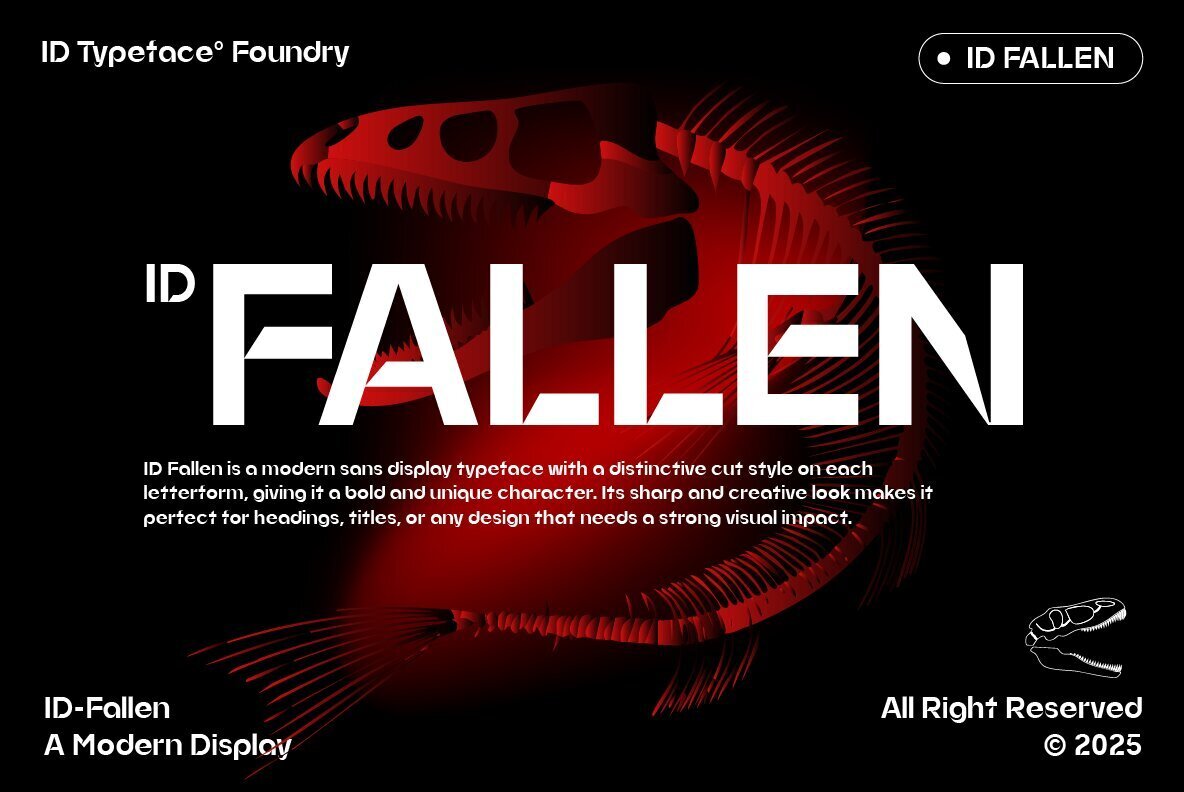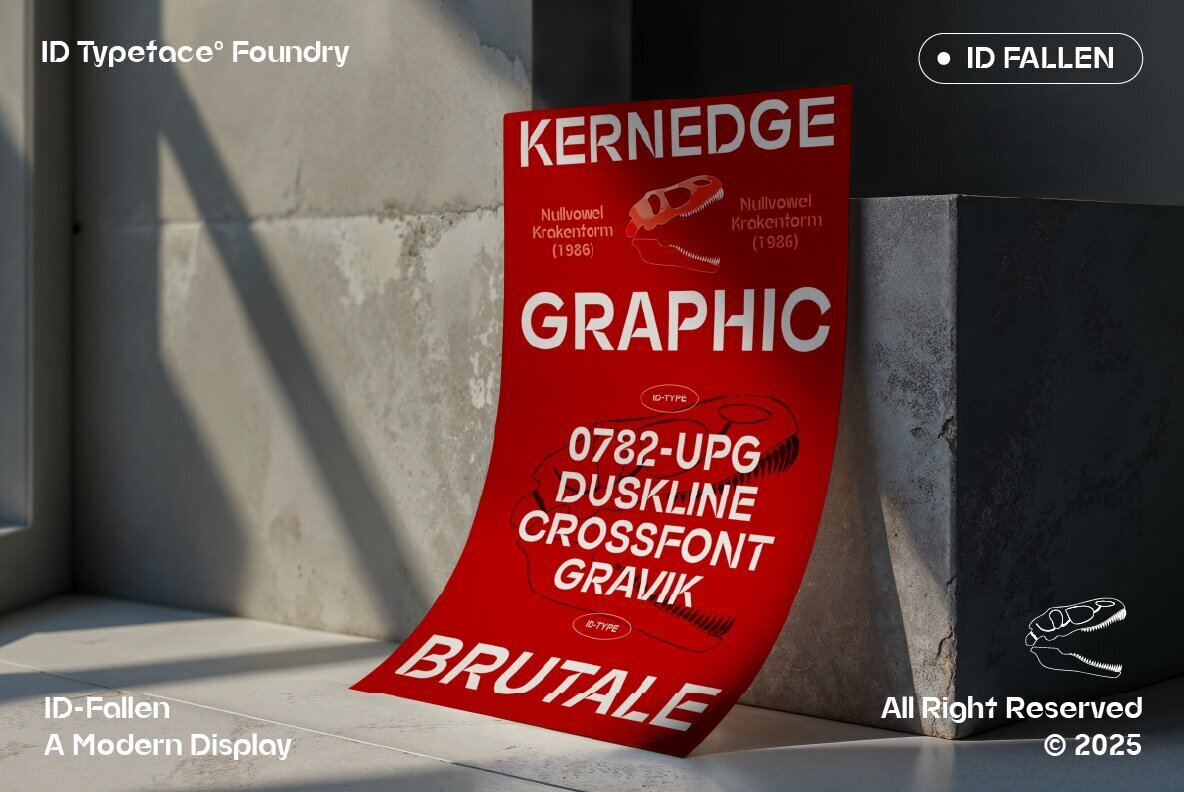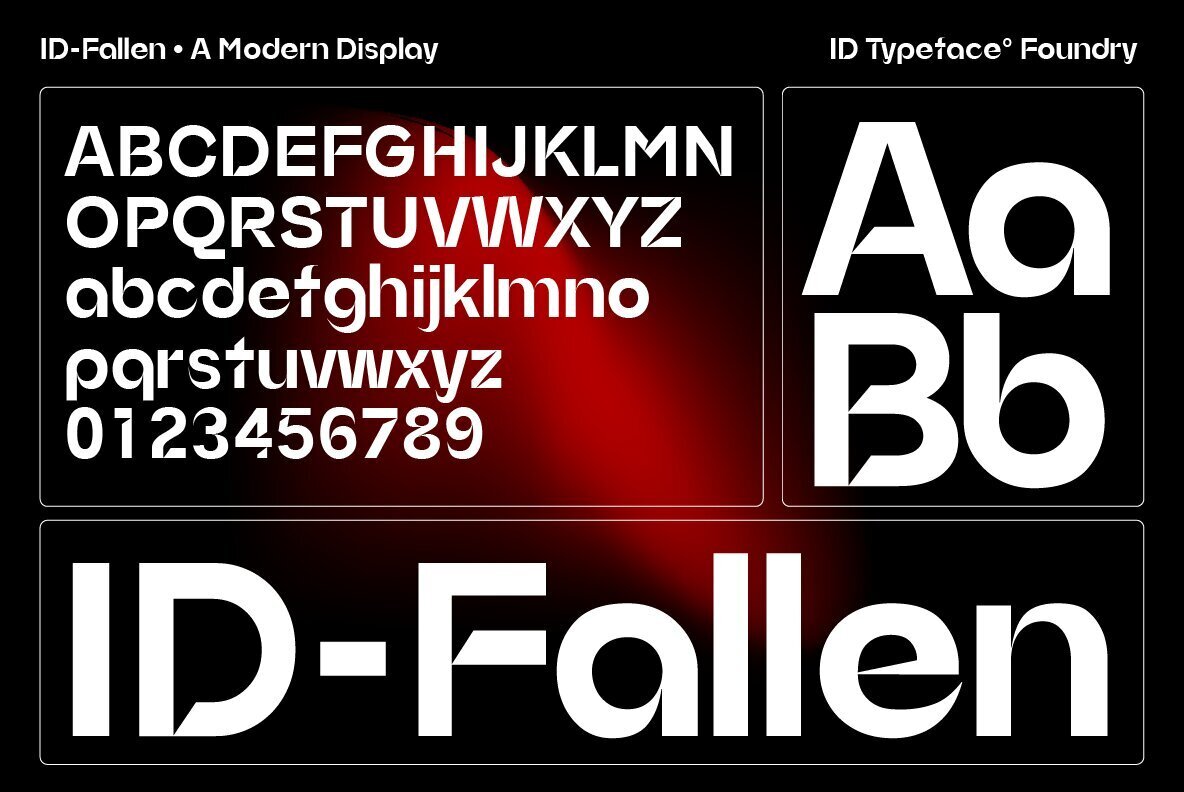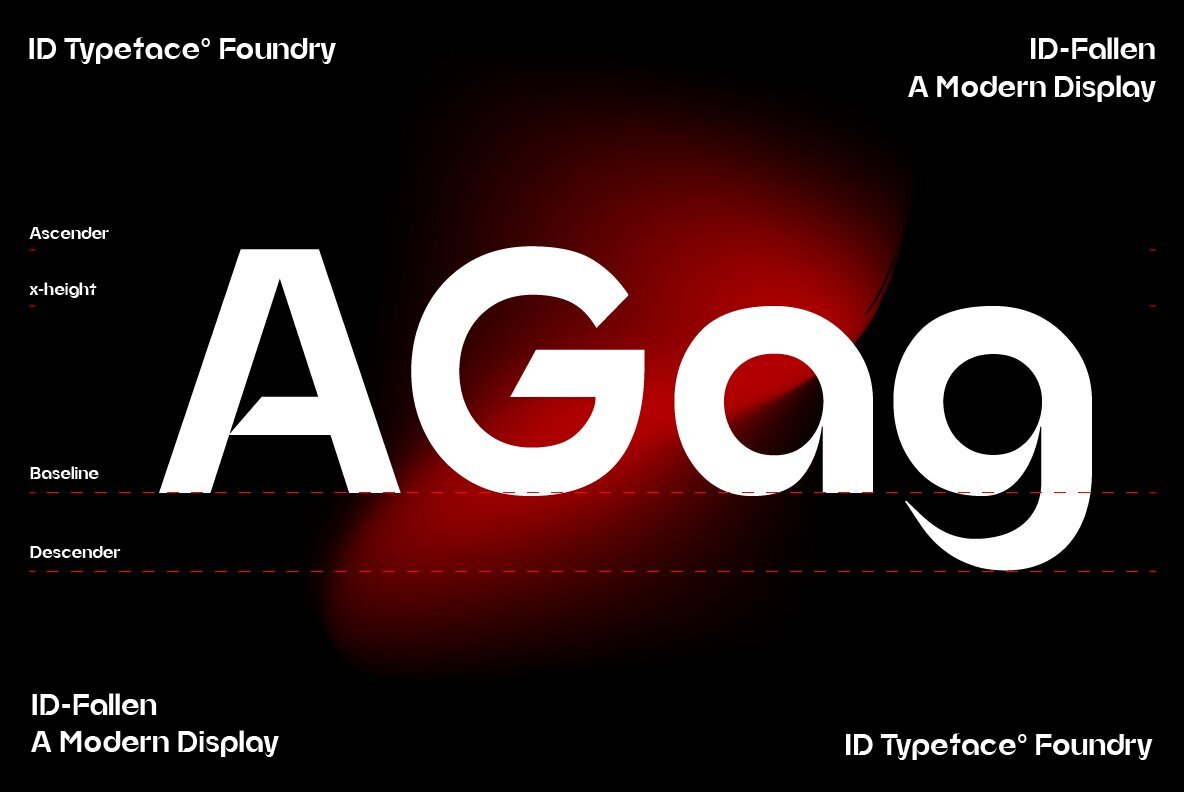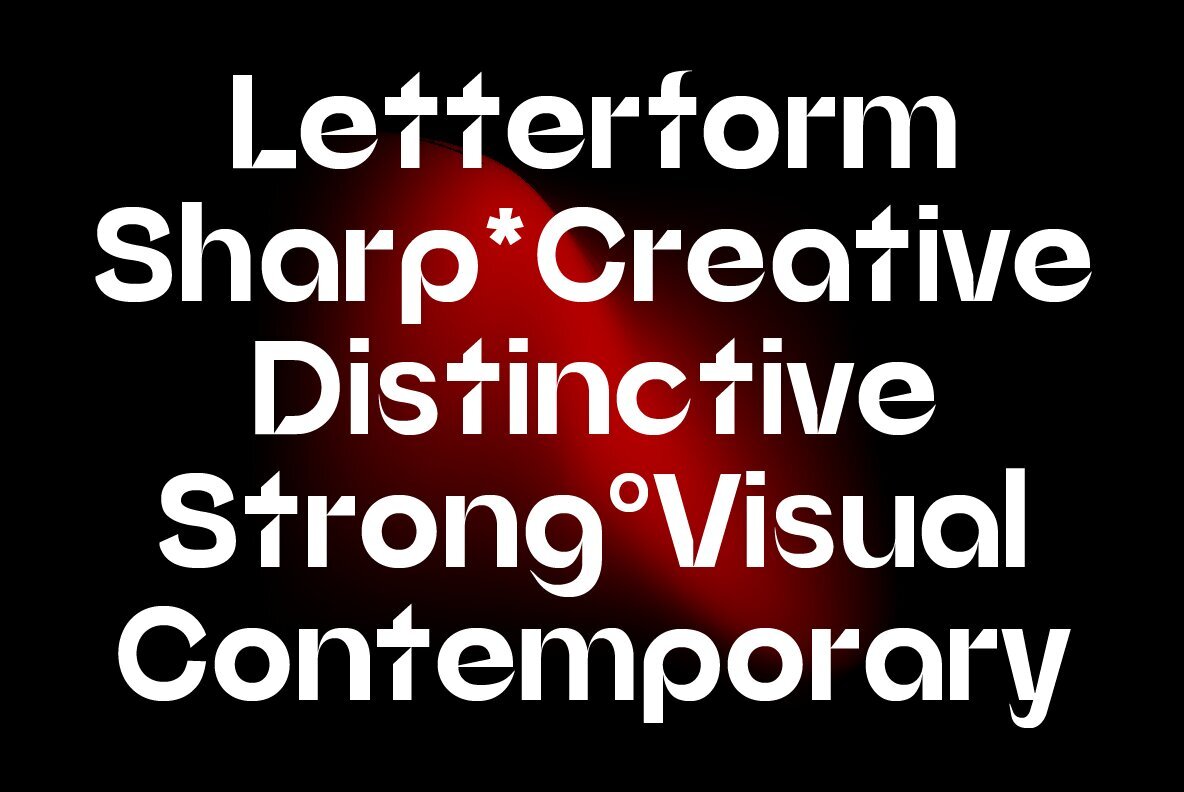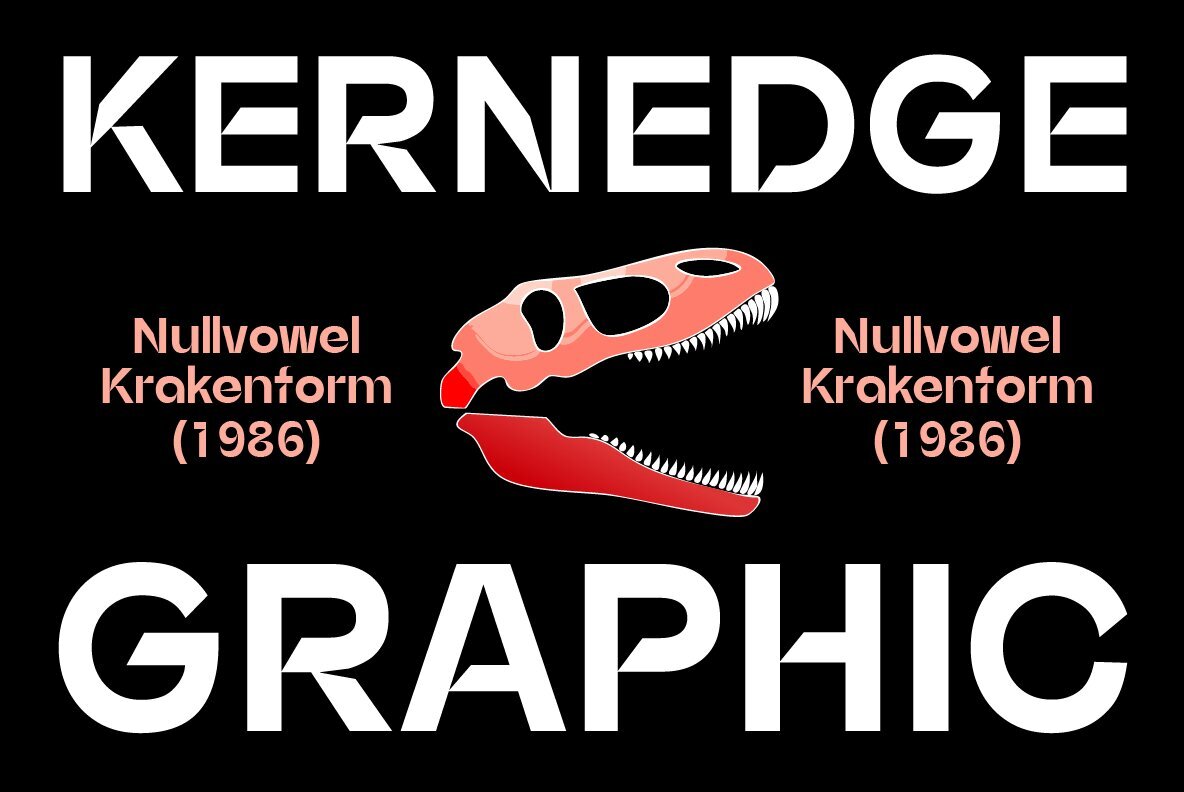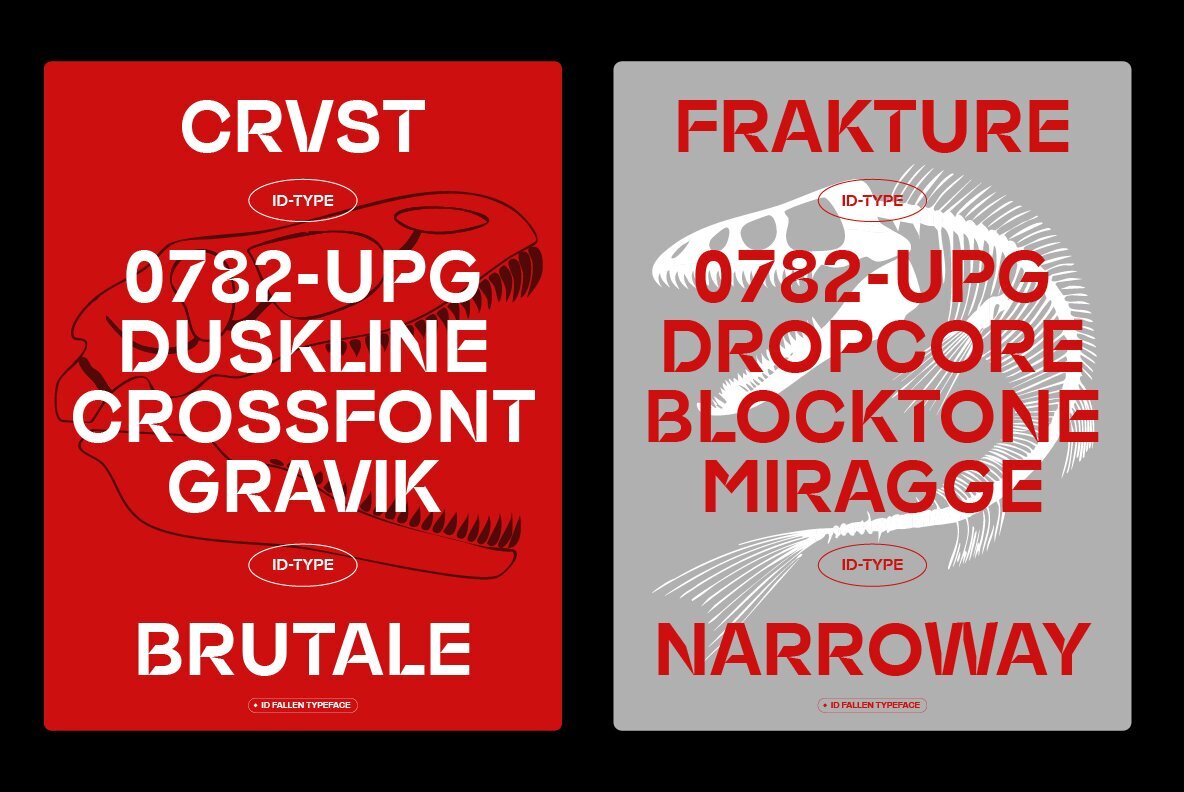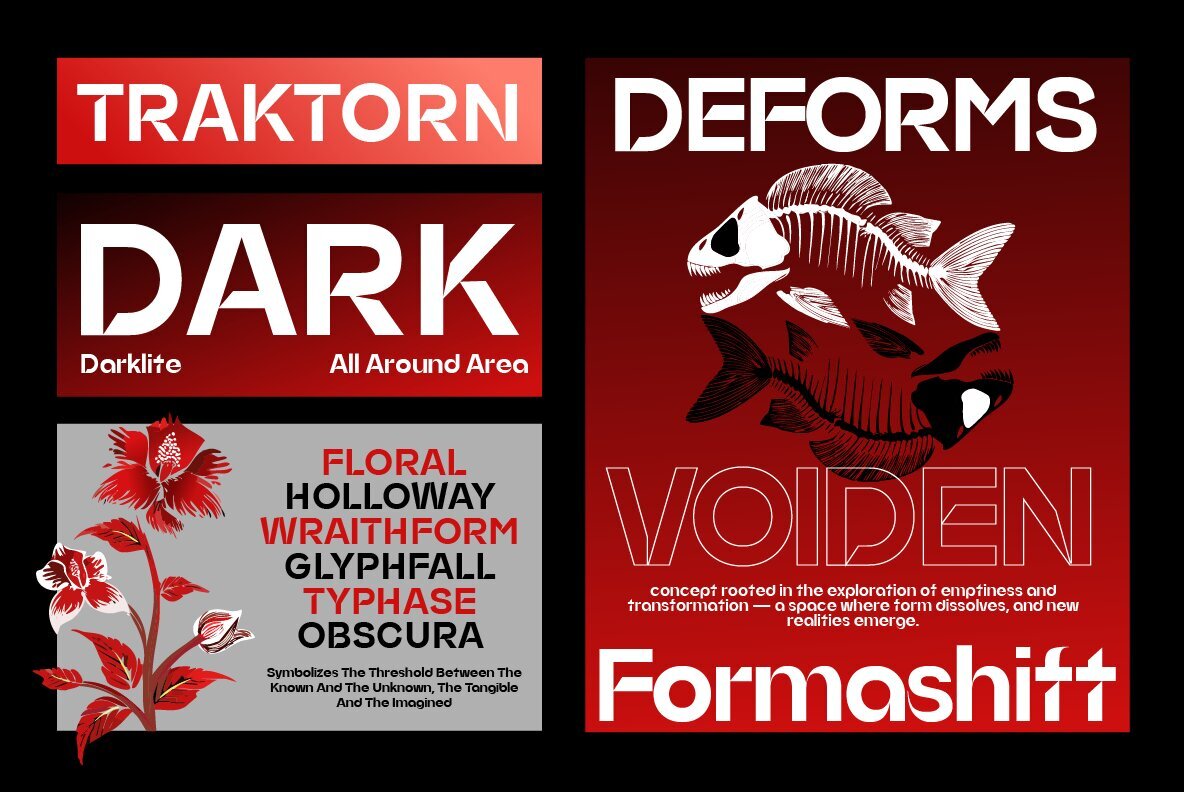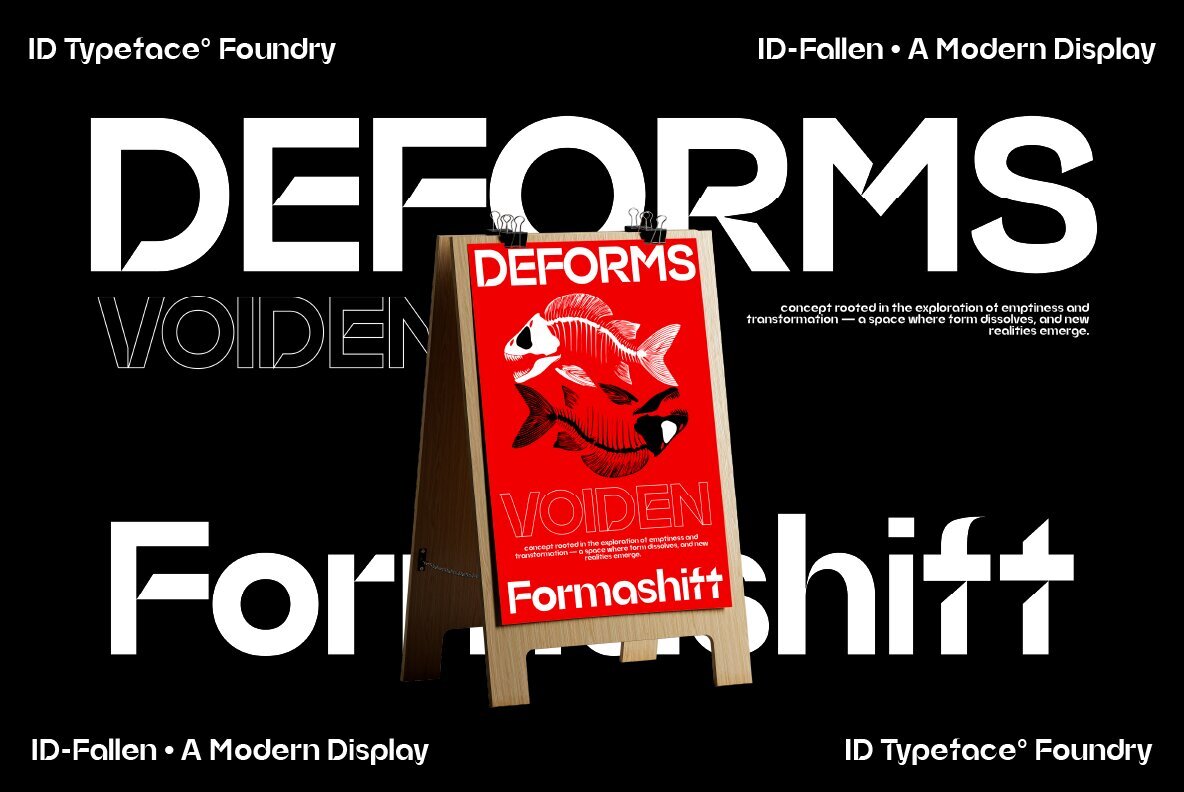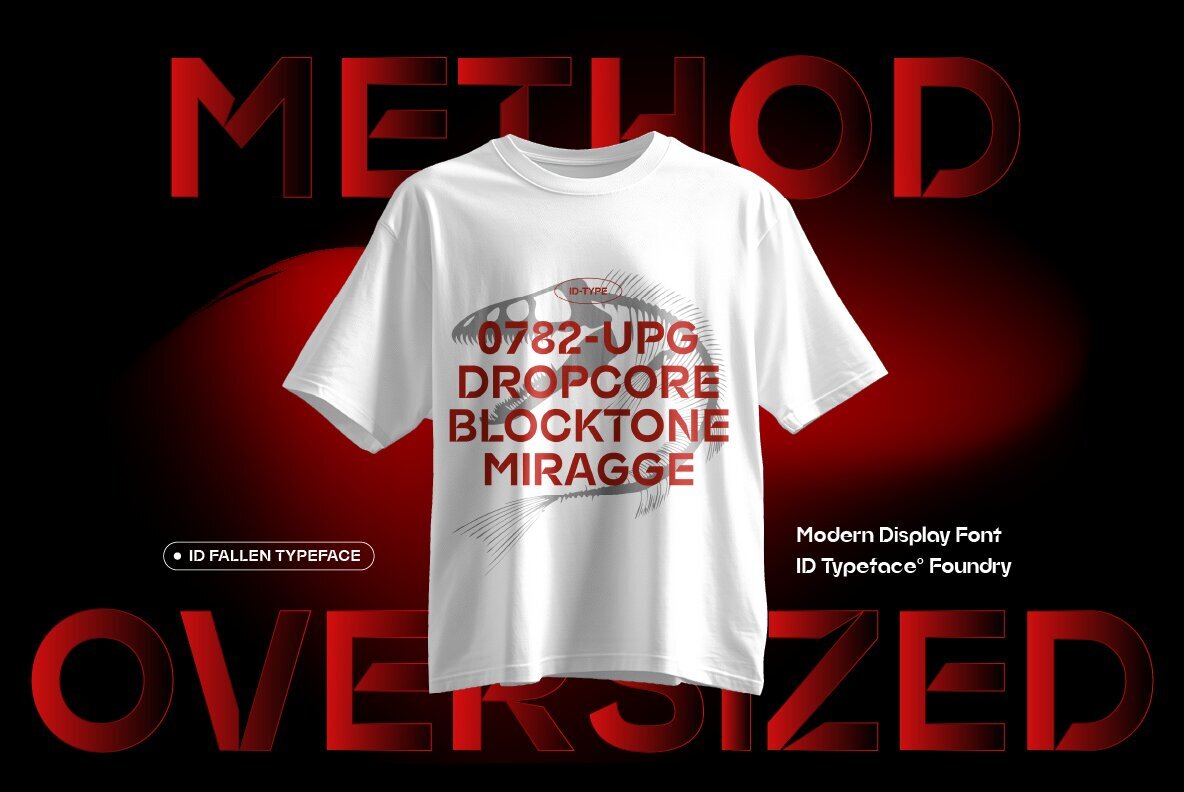
ID Fallen Font
Discover the bold elegance of ID Fallen, a modern sans display typeface that stands out with its unique cut style on each letterform. Designed for those who seek a distinct visual impact, ID Fallen brings a sharp, creative edge to your projects.ID Fallen: Modern Sans Display Typeface